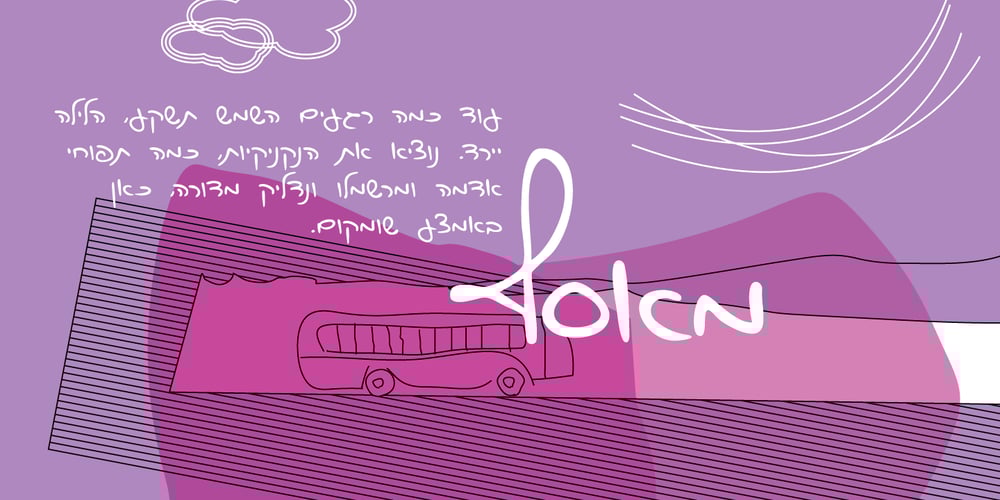
Hakohenet Hagdola MF
Hakohenet Hagdola MF font
Hakohenet Hagdola MF Font Family was designed by Meital Cohen and published by Masterfont. Hakohenet Hagdola MF contains 1 styles and family package options. This is is a vivid choice when you want to effortlessly make your designs stand out with a remarkable clearly crafted handwriting.